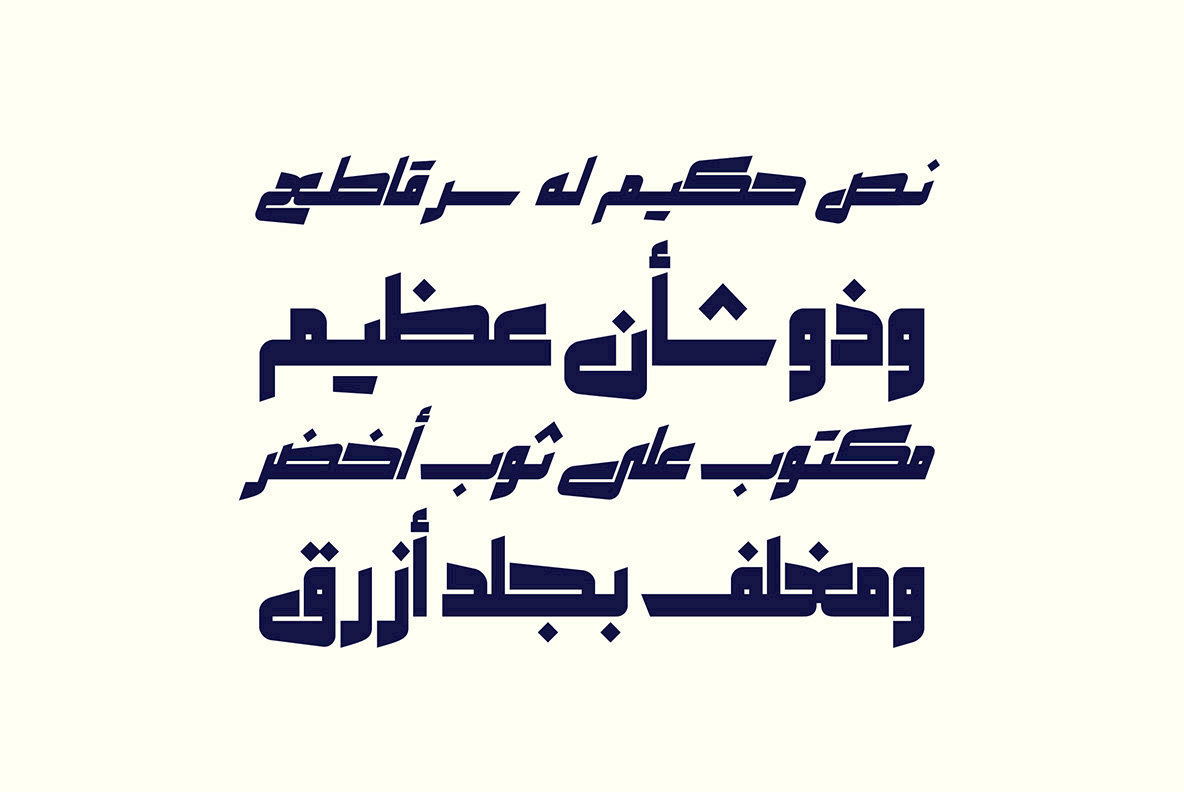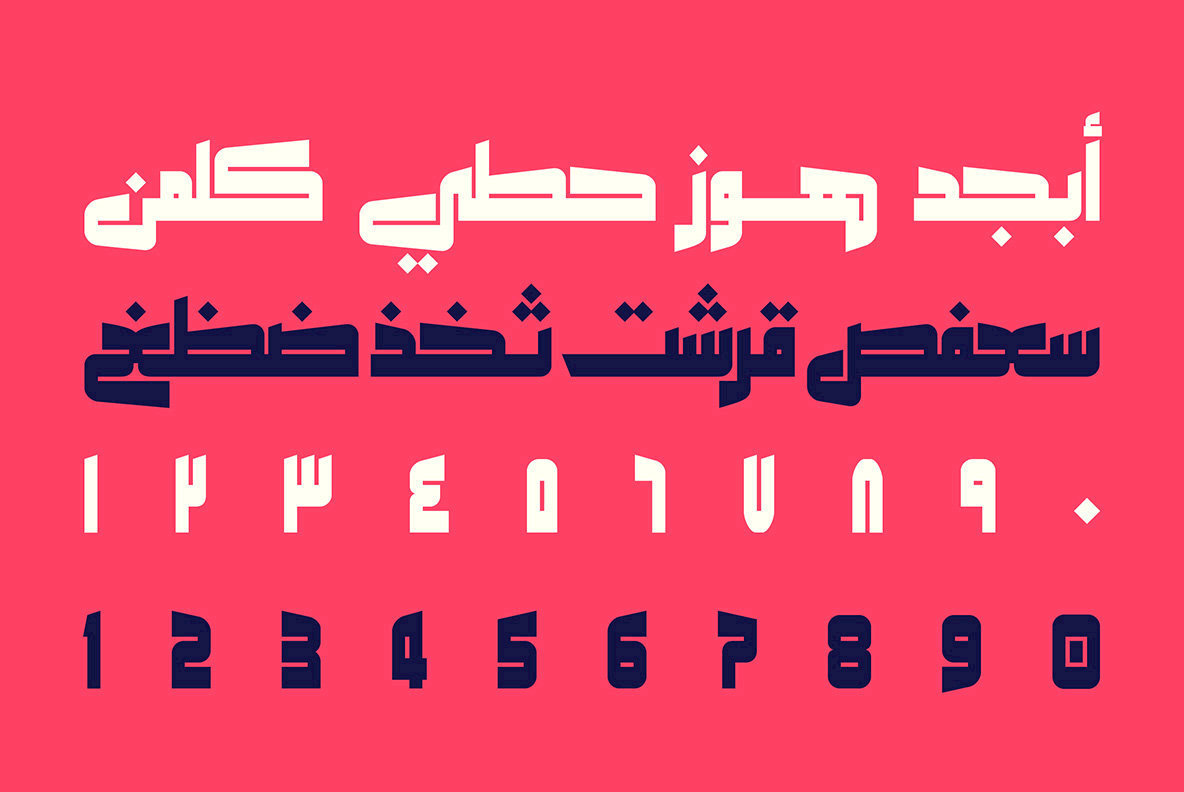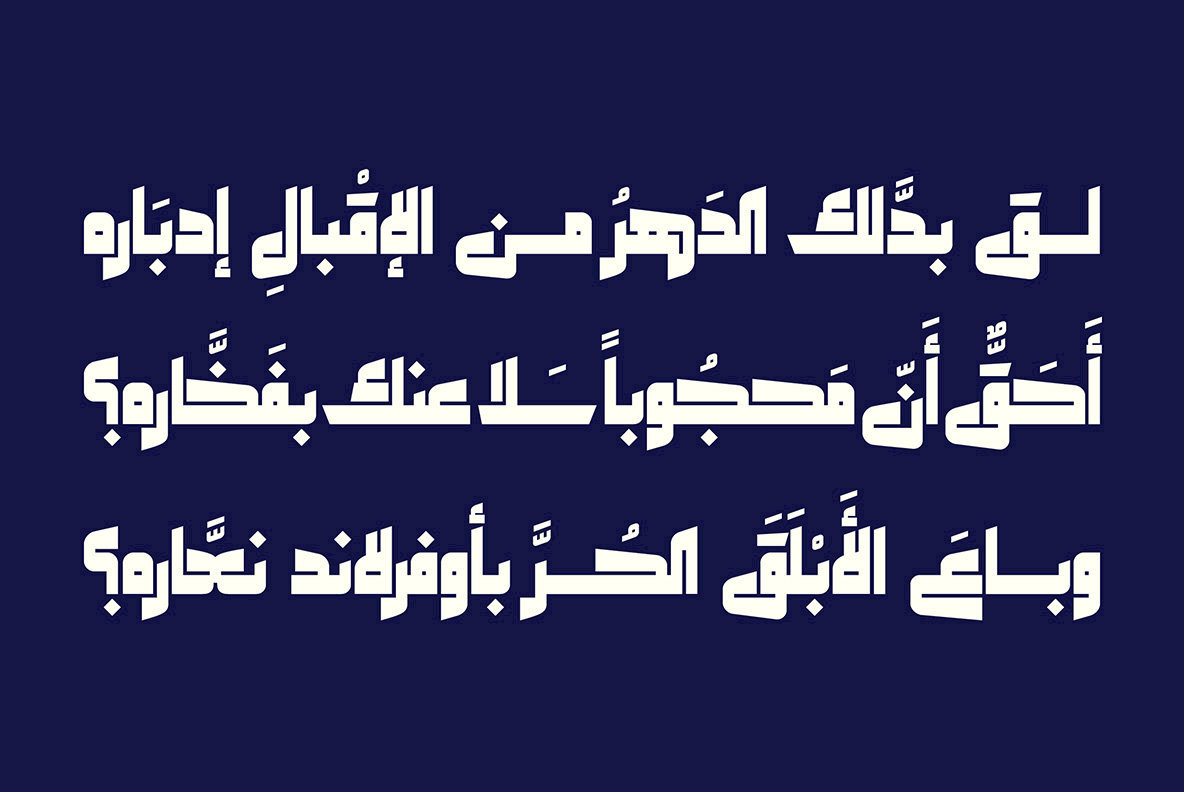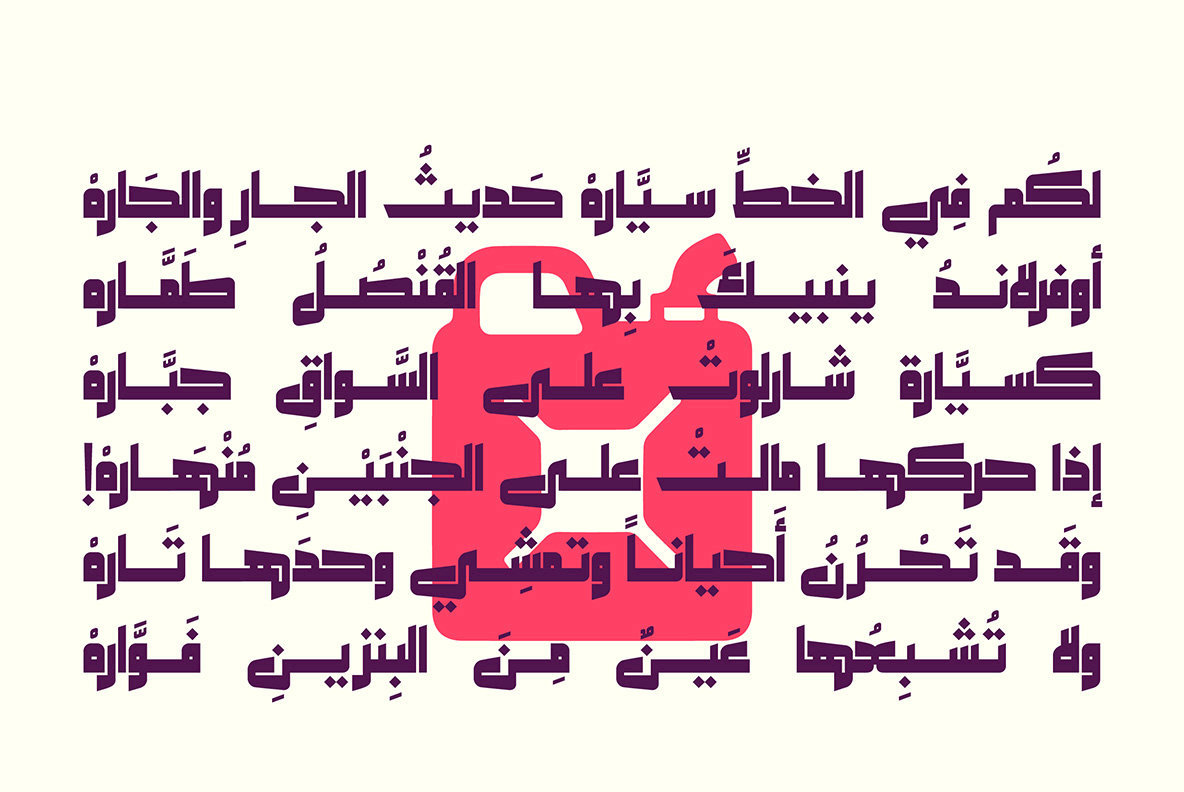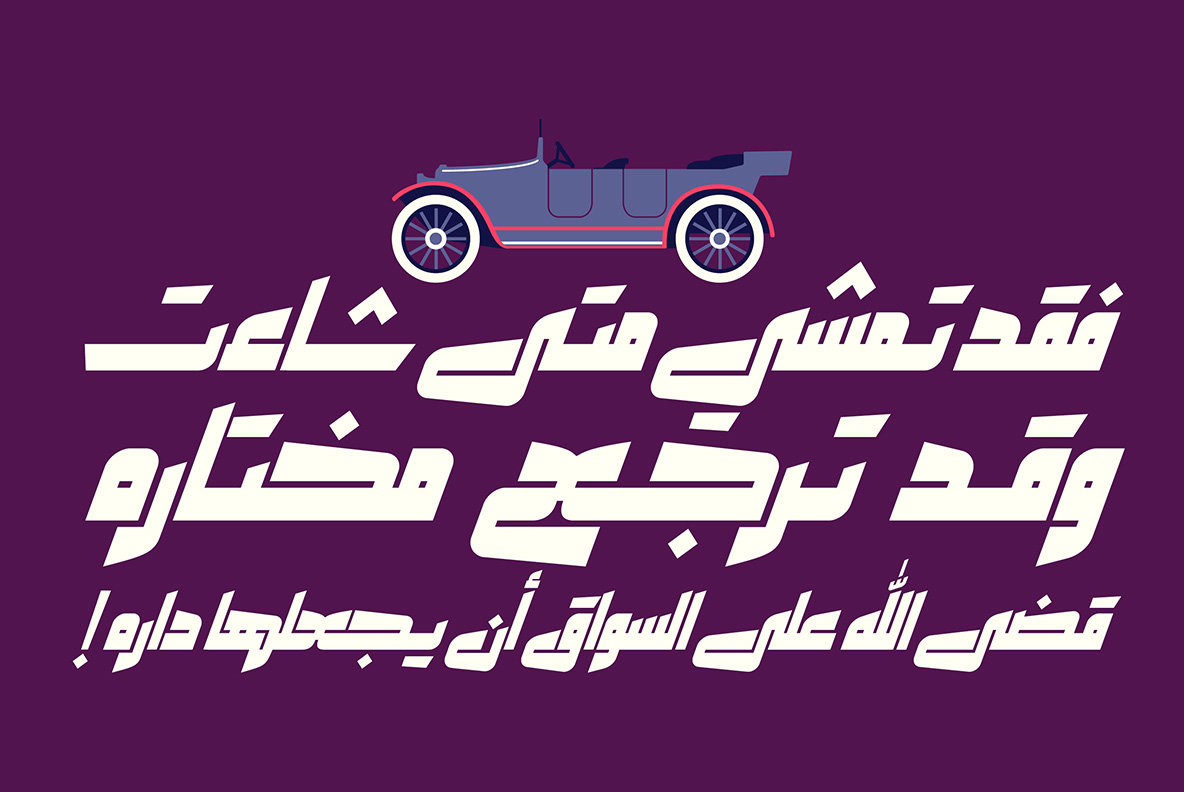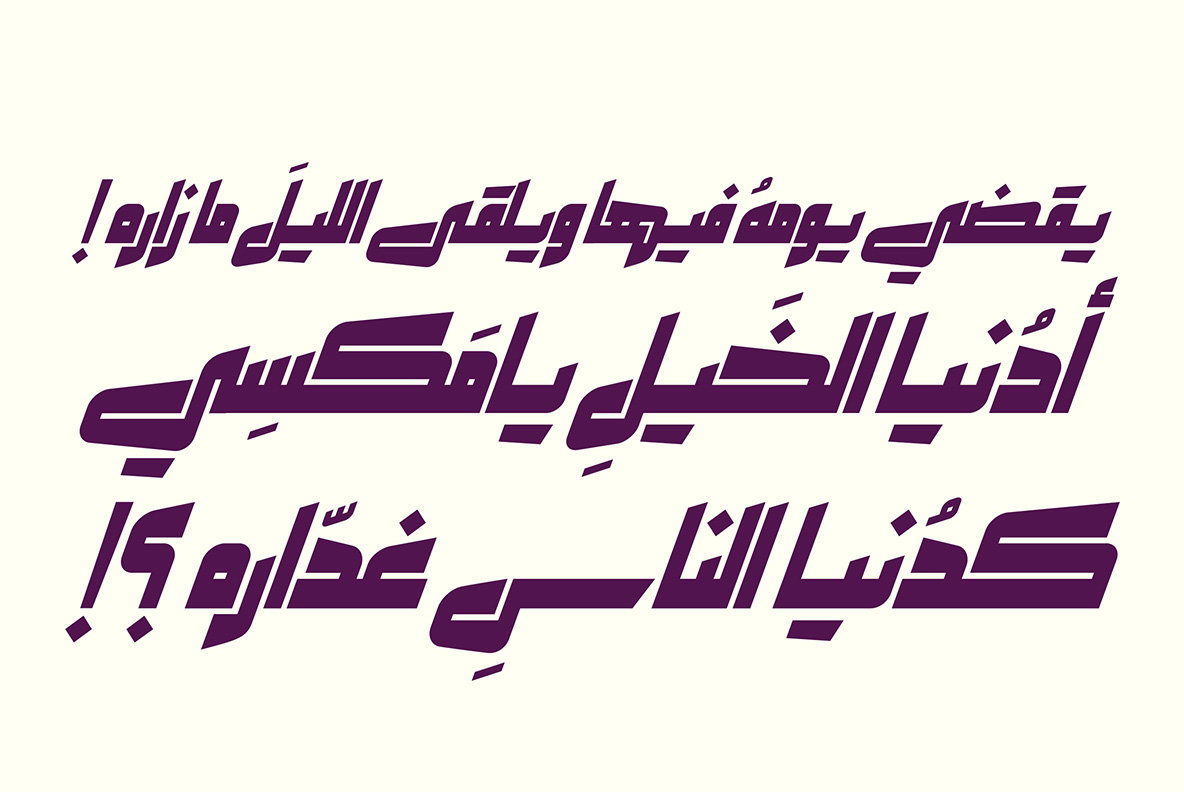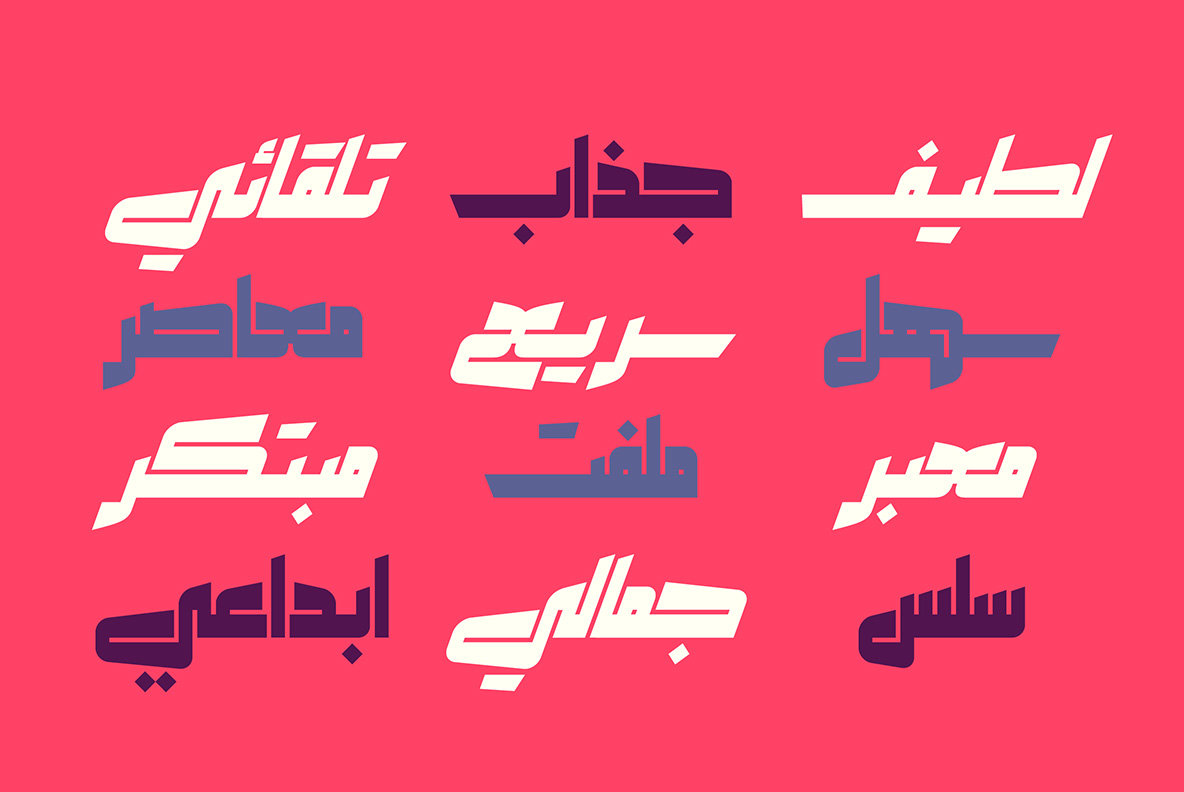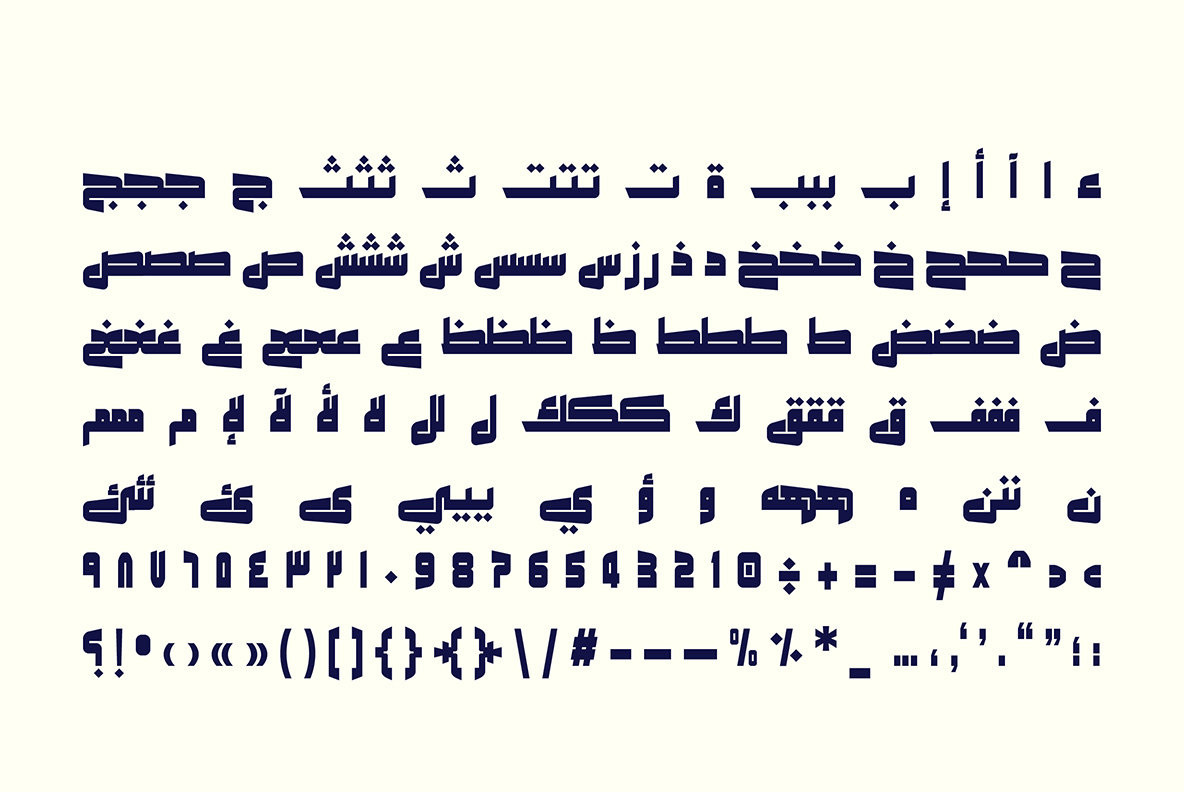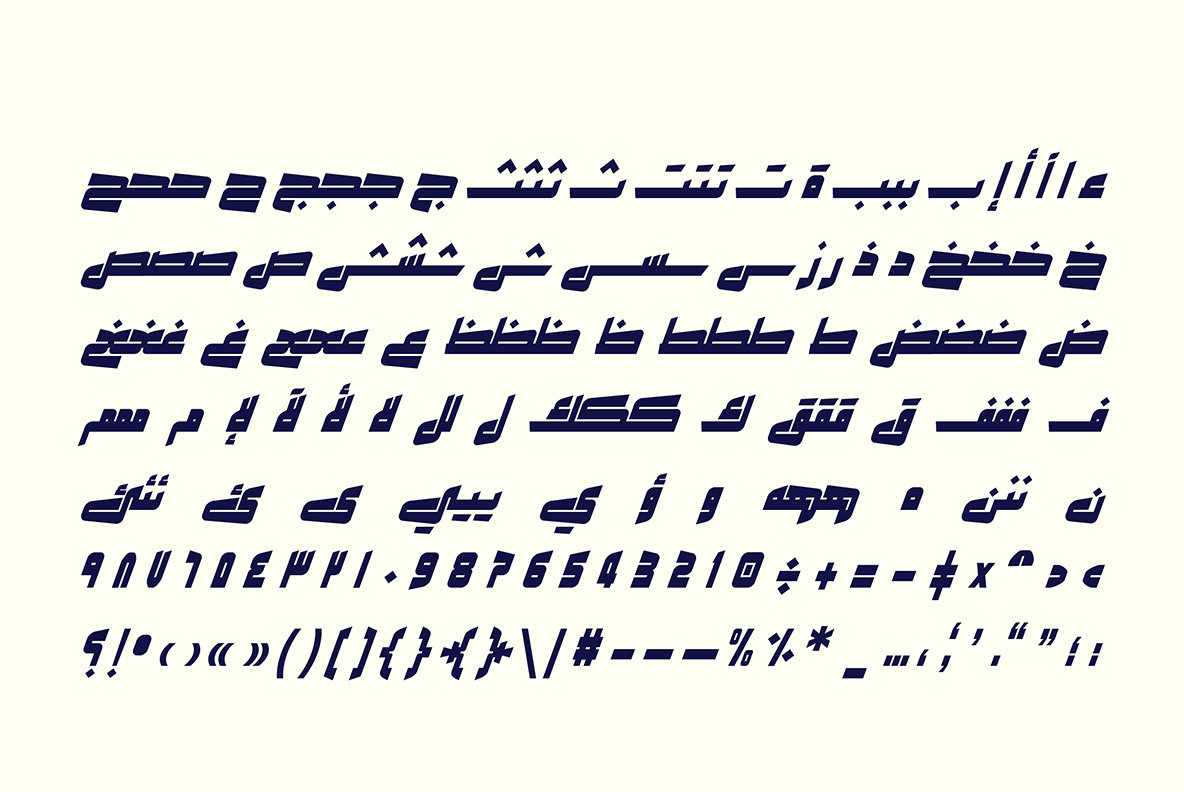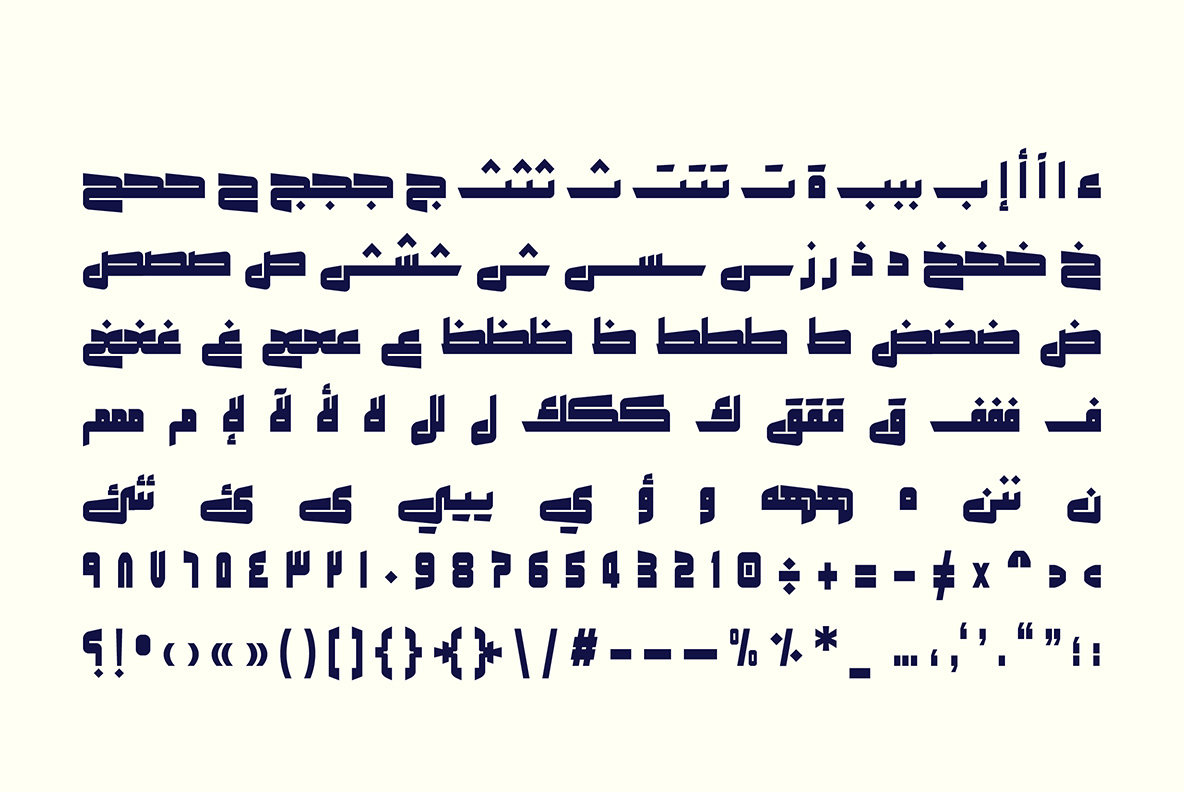
Makeen Font
Makeen
Makeen Joined Dots
Makeen Slant
Makeen is the Arabic word that means deep-rooted, firmly established, honored or powerful. Makeen is an Arabic display font that suits various range of applications including, web, advertising, publication and print. The font family consists of three styles namely; Regular, Slant and Joined-Dots.